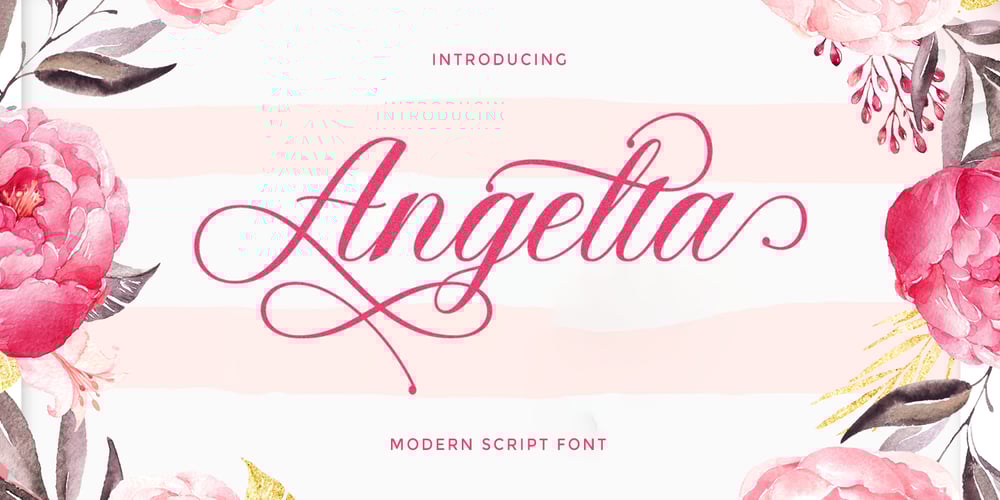
Angelta Script Font Family was designed by Rizki Andika and published by Letterfreshstudio. Angelta Script contains 1 styles and family package options. A New modern Calligraphy font, with stylish and lovely. It comes with a handy set of opentype stylistic, use the beautiful ligatures, alternates and swashes. You need a program that supports OpenType features such as Adobe Illustrator CS, Adobe Photoshop CC, Adobe Indesign, Microsoft Word 2010. It is perfect for logo, greetings, branding, quotes, prints, invitations and crafting. All lowercase letters include alternates, beginning & end swashes, that makes the font look fabulous!Included in the pack:Angelta Script (OTF)These are all coded with PUA Unicode. Mac users can use Font Book and Windows users can use Character Map to view and copy any of the extra characters to paste into your favourite text editor/app.Thanks and have a wonderful day 🙂